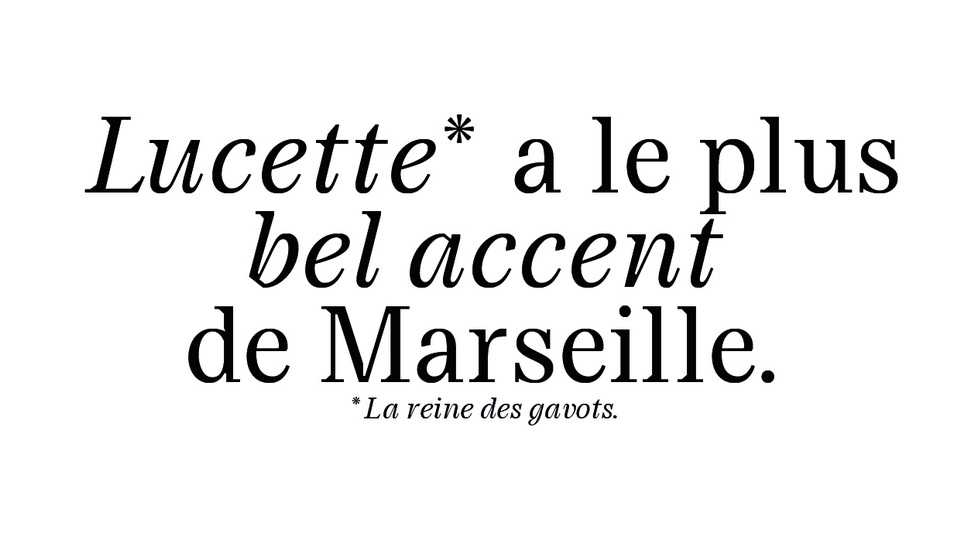
Download Lucette font, a serif text typeface mainly inspired by the Times New Roman. The peculiarities of Lucette typeface are in combination of a light curve and a straight and modern serif, as well as a hard and severe Regular and a soft and light Italic.
Designer: Yann Linguinou